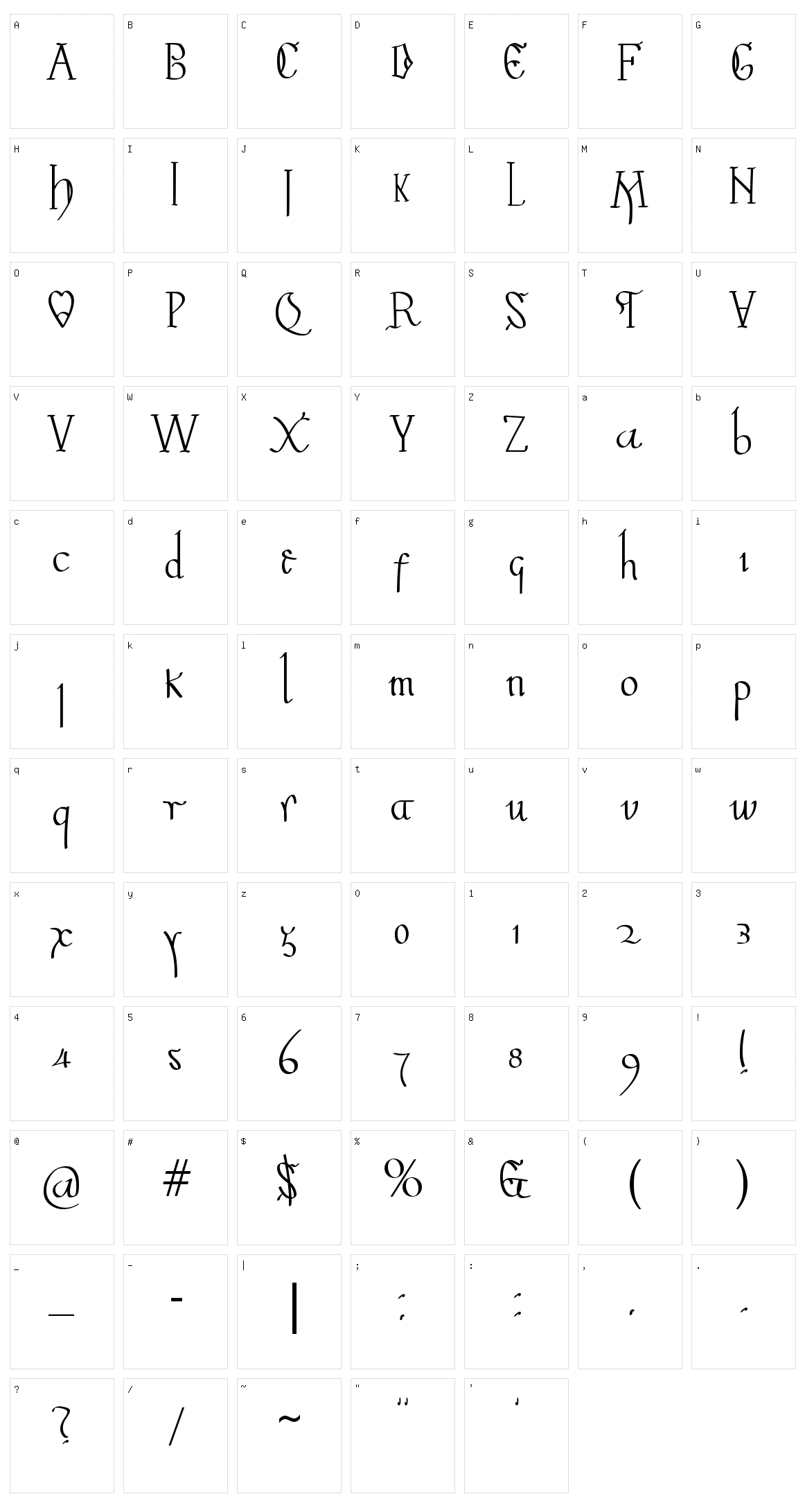
The free font Valpuesta is carefully designed by Type Sailor, showcasing a thoughtful balance of creativity and usability and belongs to the Gothic font family. When you download the ZIP file, it contains only 212.04 KB of font files, making it lightweight and quick to download. Please review the license details below to understand permitted usage and distribution rights. If license information is not available, we recommend using this font for personal projects only or contacting the author directly for commercial usage permissions.